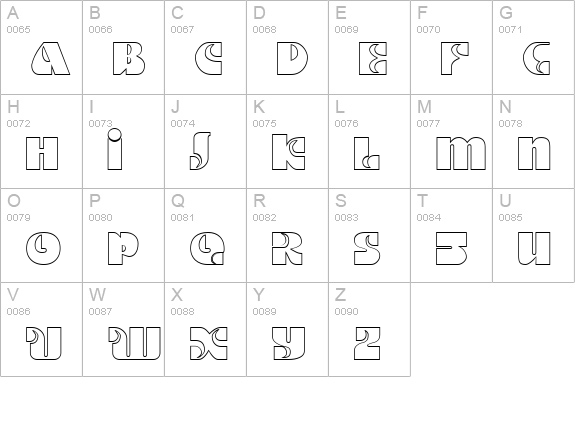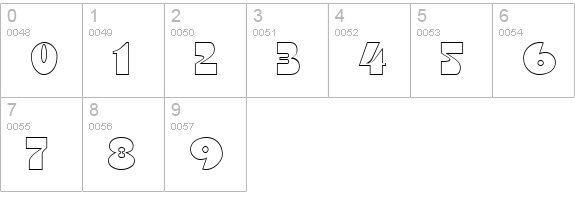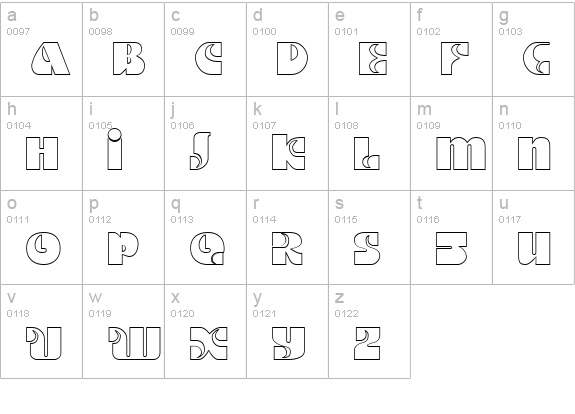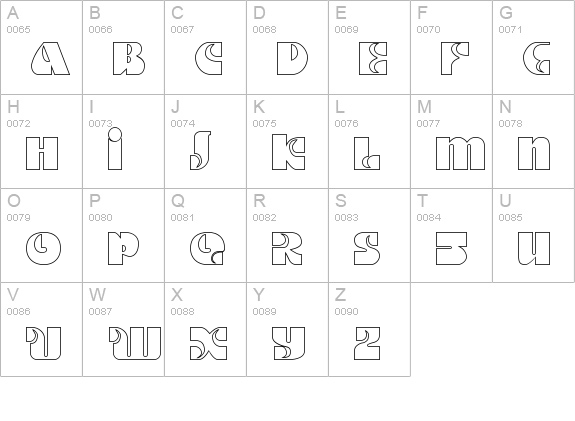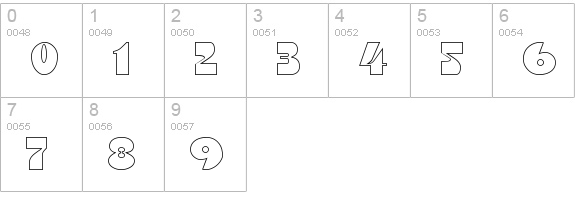
DSMotterHo Font Details
DSMotterHo font is a sleek and modern typeface that exudes sophistication and elegance. With its clean lines and sharp edges, this font is perfect for creating professional and stylish designs. Whether you're working on a branding project, creating a sleek website, or designing eye-catching marketing materials, DSMotterHo font is sure to make a statement. The best part? DSMotterHo font is completely free to download at FontsMarket.com. You can easily add this versatile font to your collection and use it in a variety of projects without any cost. Don't miss out on the opportunity to enhance your designs with the timeless beauty of DSMotterHo font. Download it today and let your creativity soar!